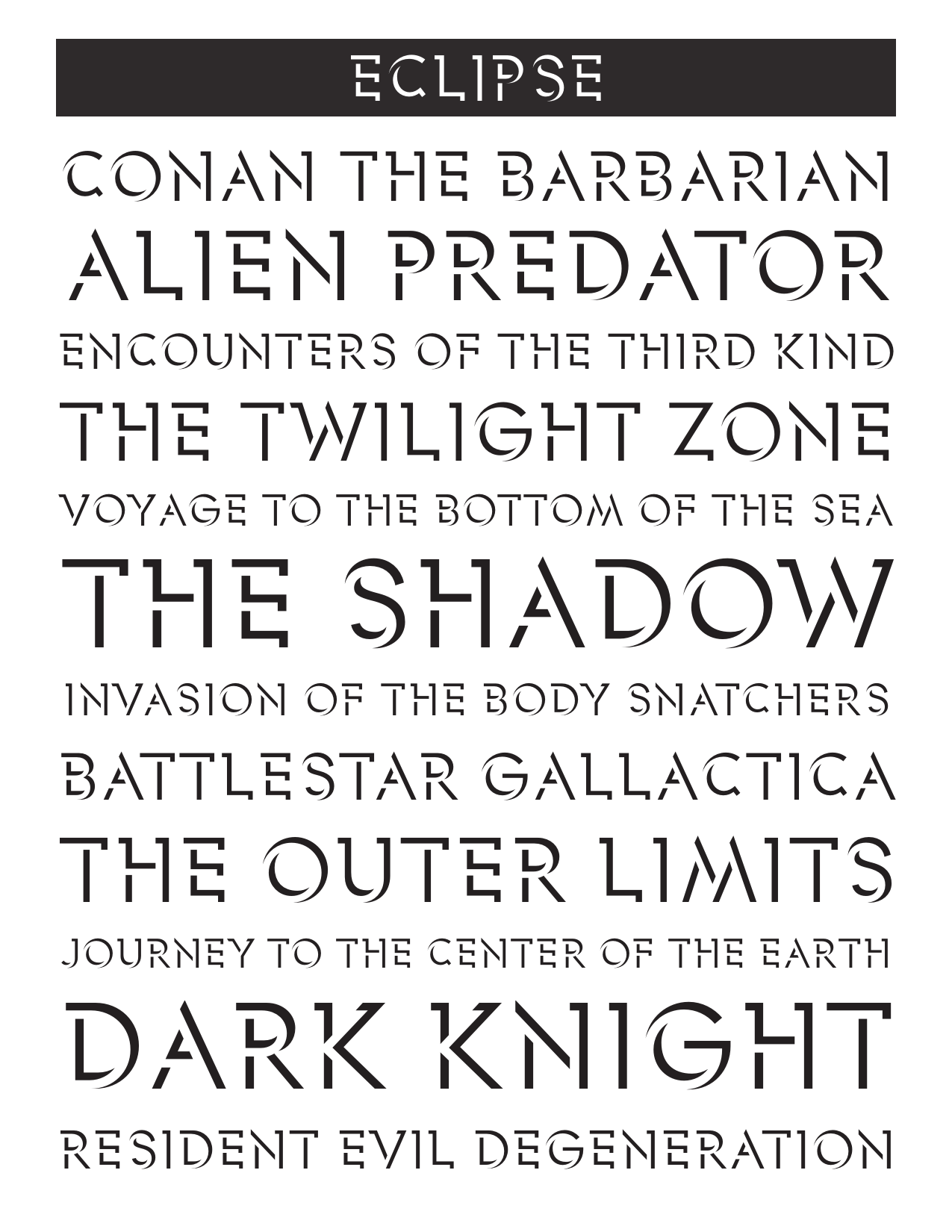
Eclipse
I often experiment with different shadow techniques. One day I accidentally scaled, instead of repositioning, some black text behind the white copy on top and noticed something very different and interesting happen. It was an intriguing effect. It took some clever handiwork to make it work properly across the entire alphebet. And behold, Eclipse was born.